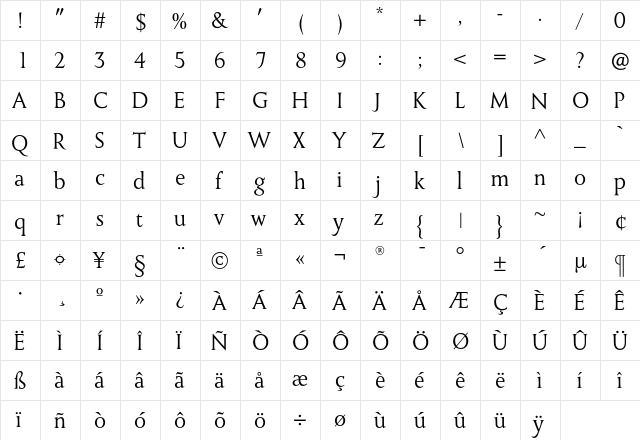
MonktonRegular Regular
Design Context for MonktonRegular Typeface
MonktonRegular is a composed and adaptable typeface that performs quietly and consistently across a wide range of design contexts.